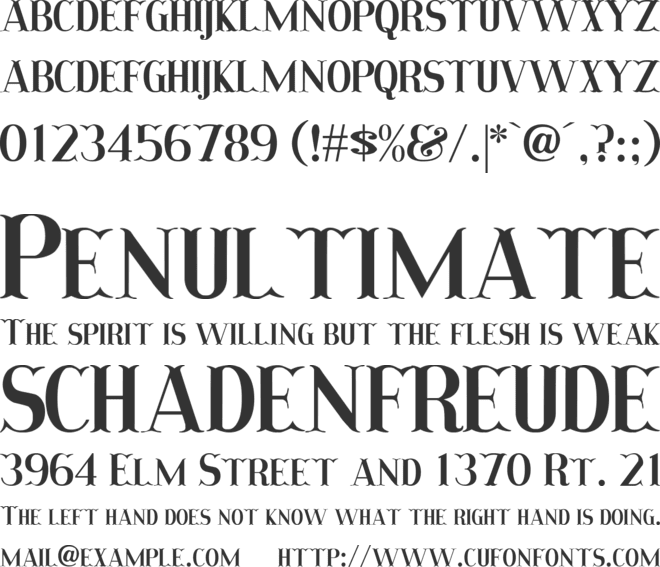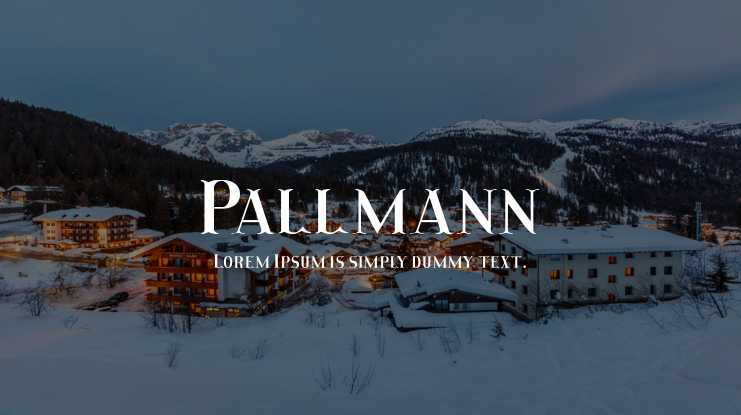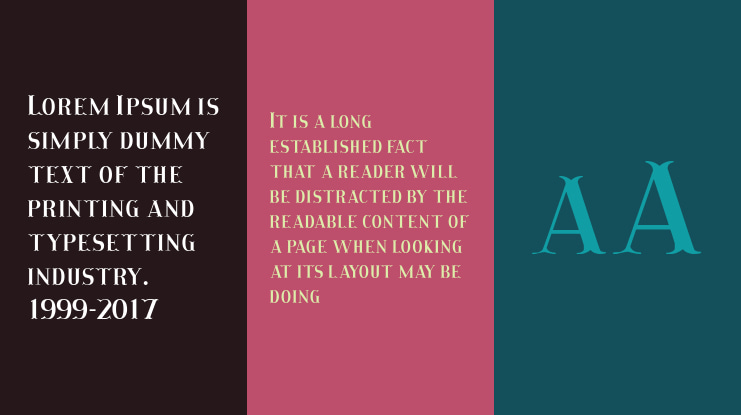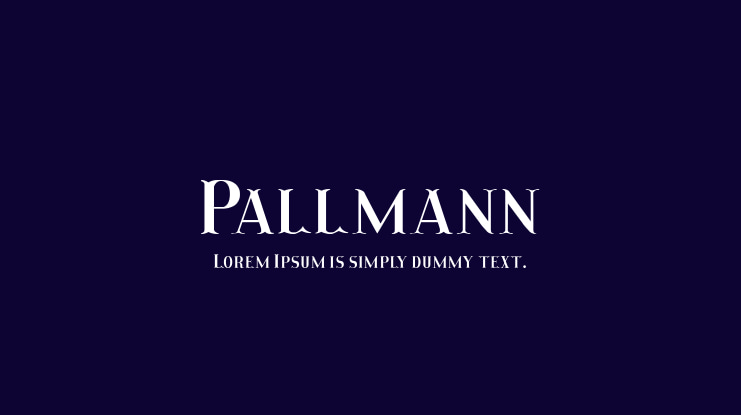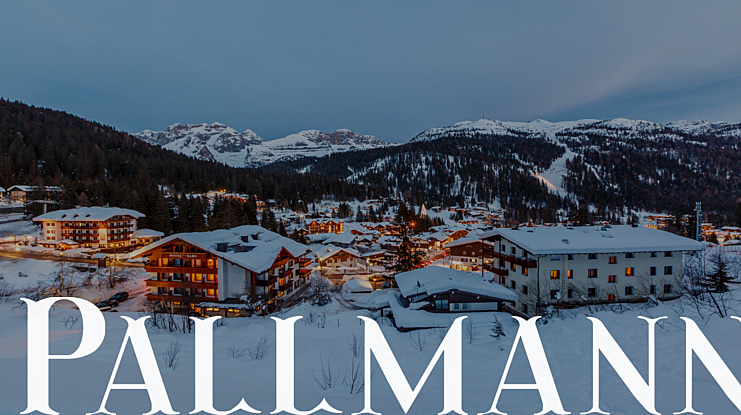
Pallmann Font
This fancy, decorative font contains 600 characters. It supports all western European languages and also contains the entire Greek and Cyrillic alphabets. Enjoy!